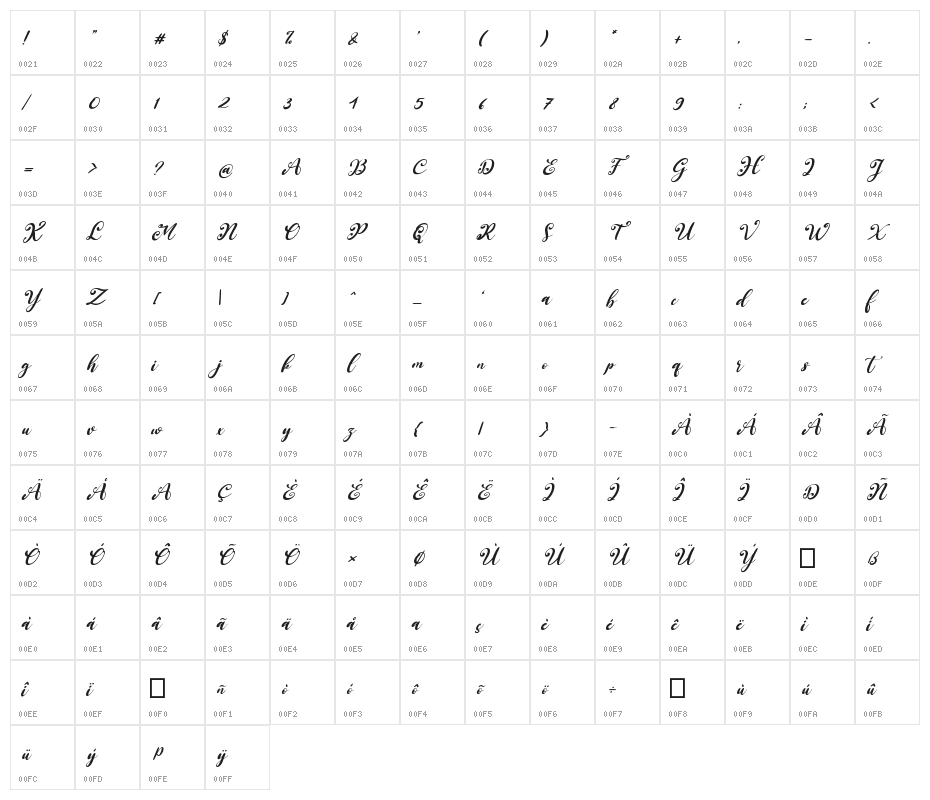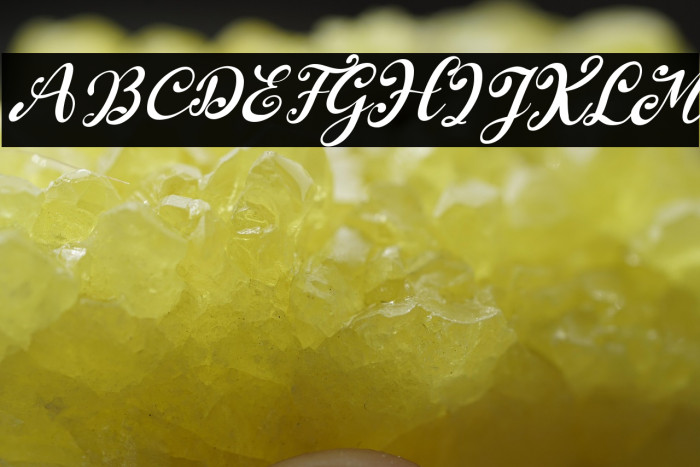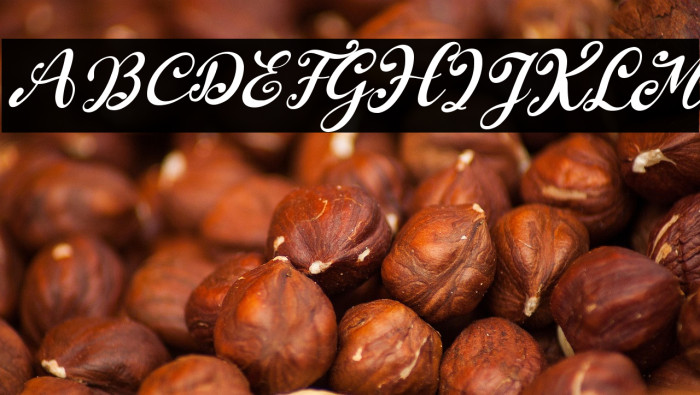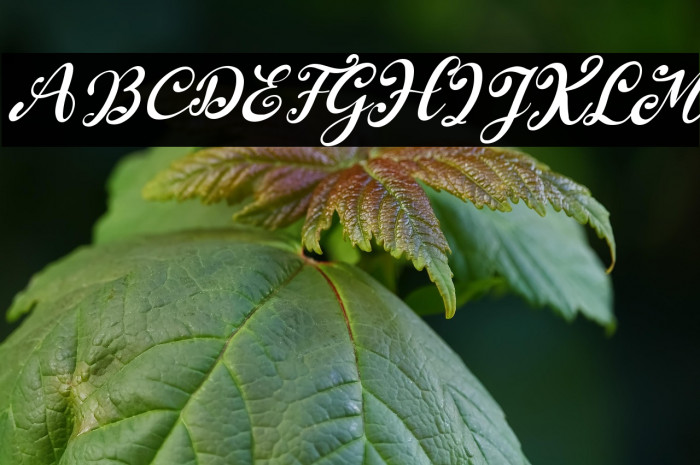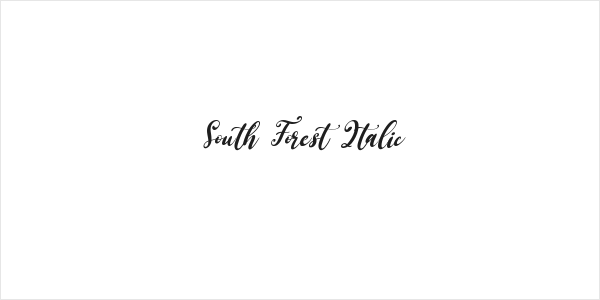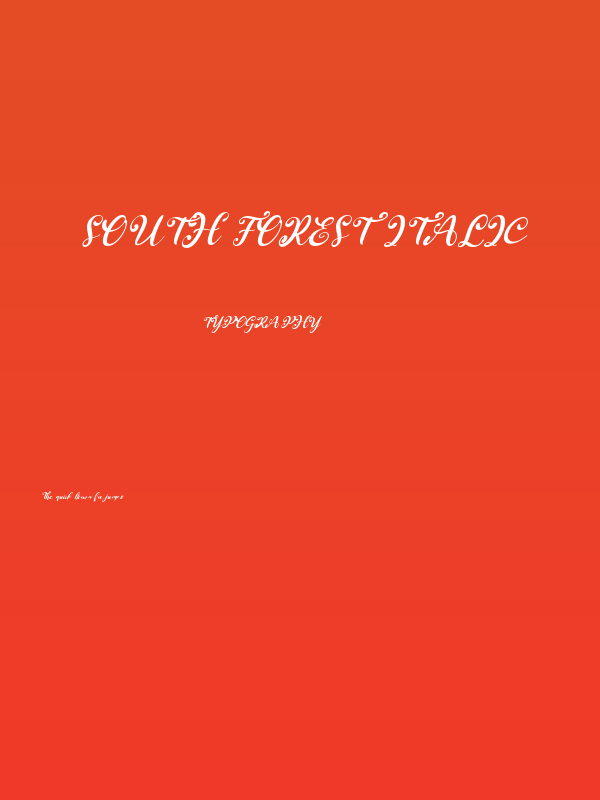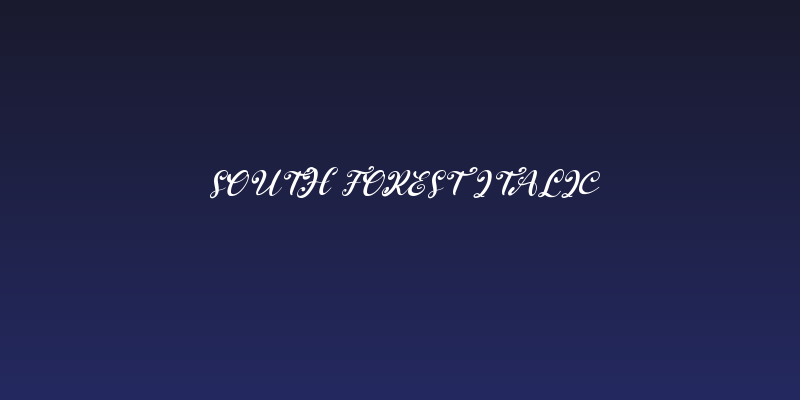
South Forest Italic Font
South Forest Italic Description
This font features an elegant and flowing script style, characterized by its smooth, cursive strokes and decorative flourishes. The uppercase letters are particularly ornate, with loops and swirls that add a touch of sophistication and charm. The lowercase letters maintain a consistent style, with a slightly more restrained design that ensures readability. The numerals and special characters are crafted to match the overall aesthetic, providing a cohesive look across all elements. This font exudes a sense of elegance and is perfect for projects that require a touch of class and refinement.
| Overall Style | Elegant, Decorative |